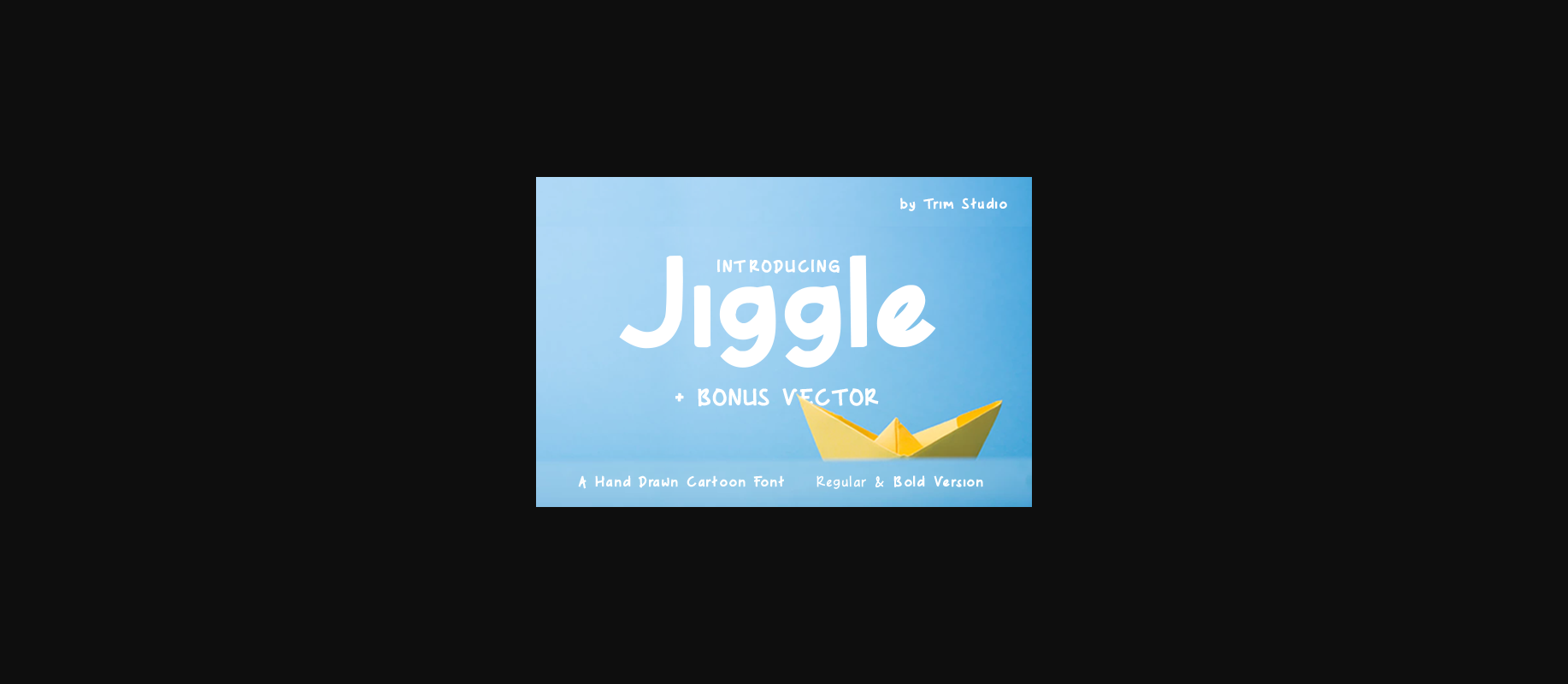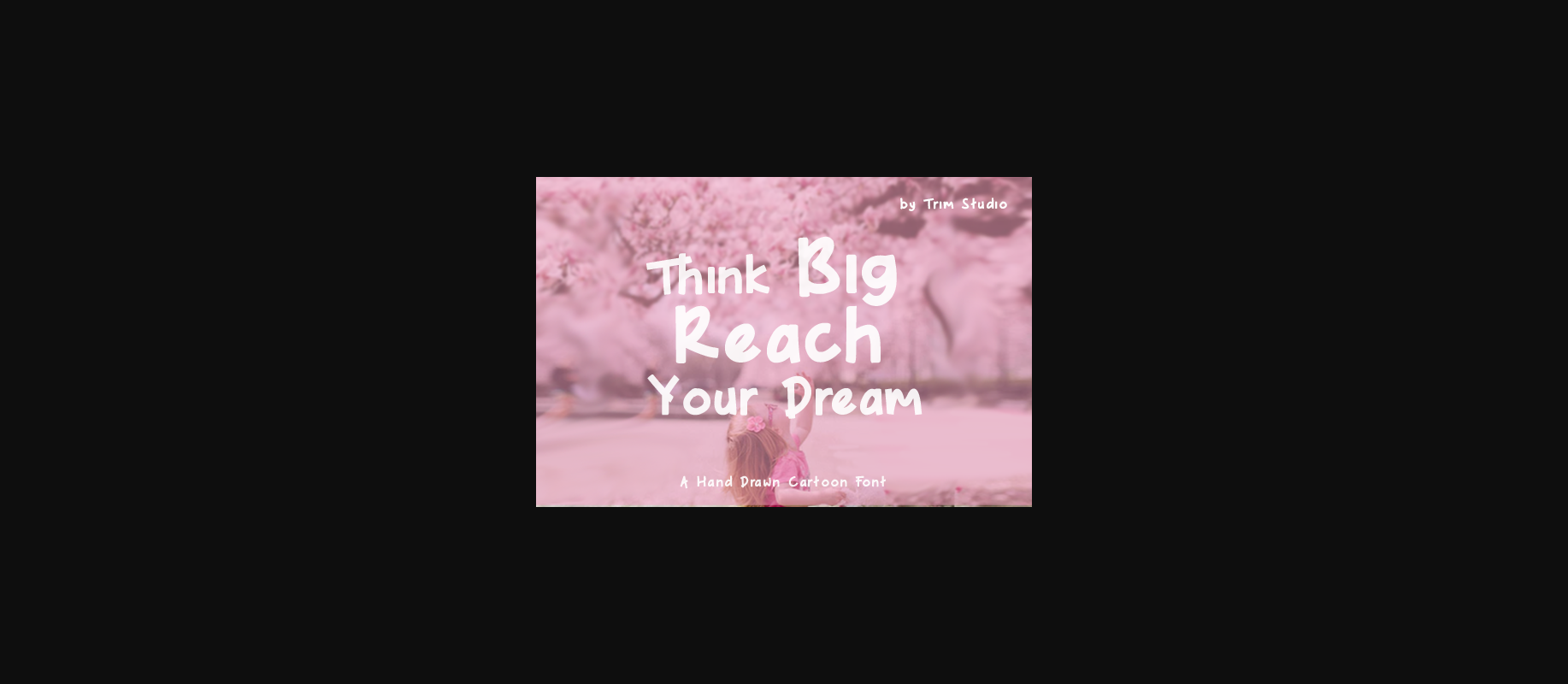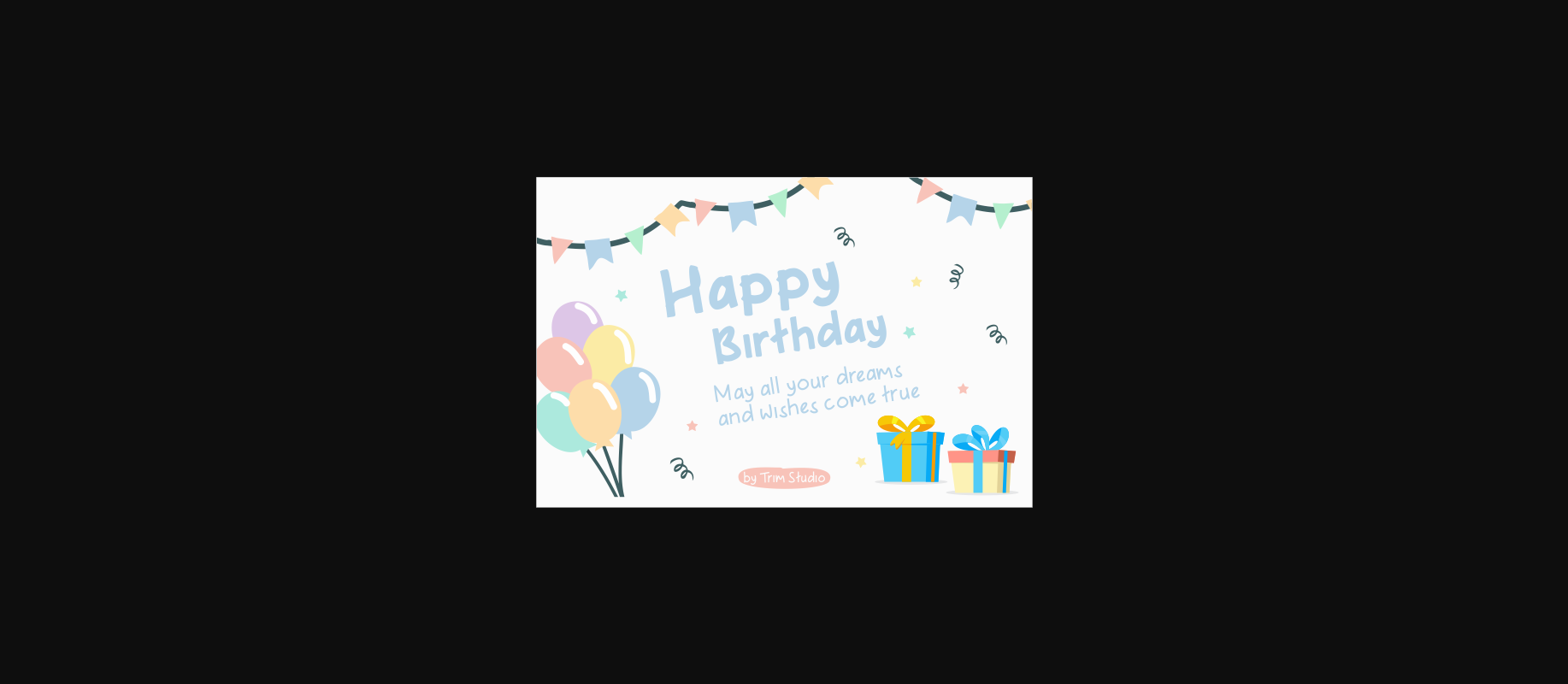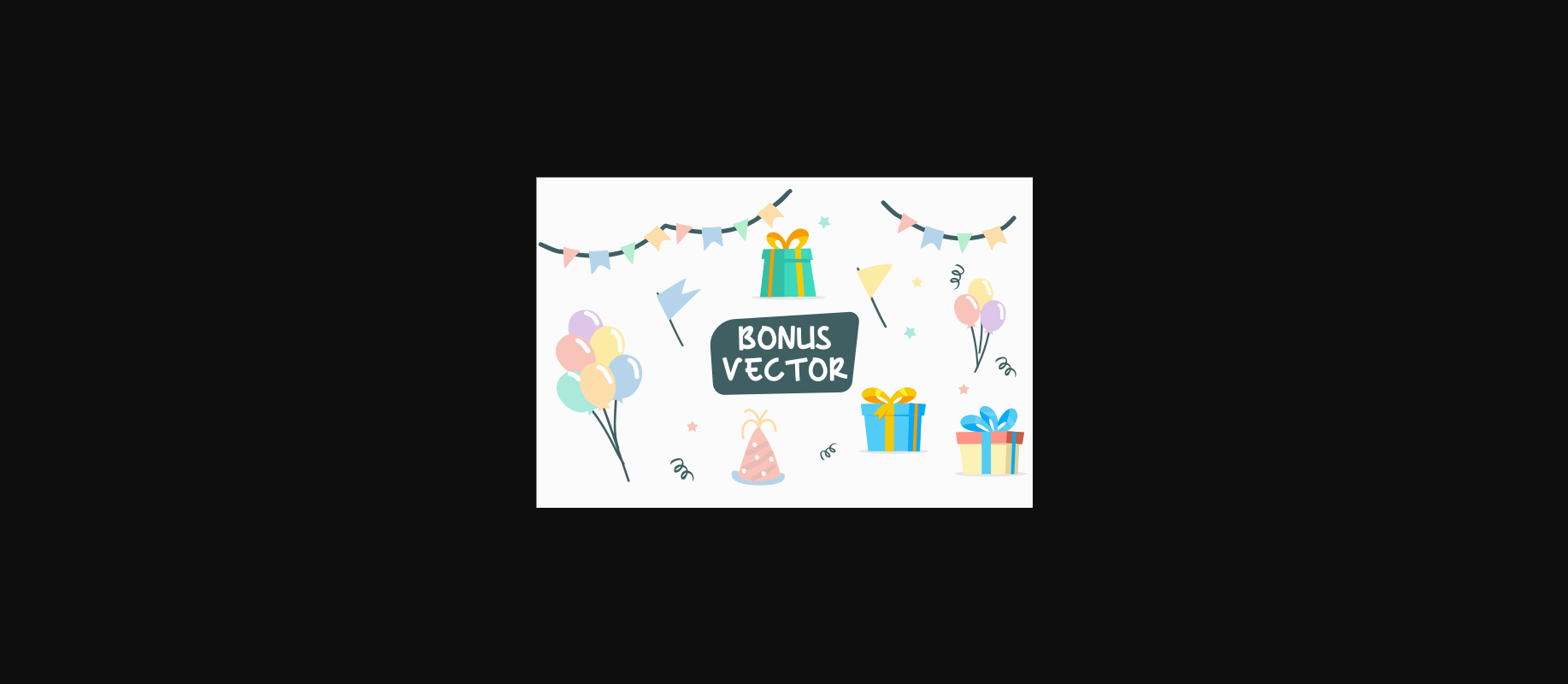
Jiggle Font
About Jiggle Font
Jiggle is a casual cartoon font. It comes in a regular and bold version. It has a childish, fun look which makes it perfect for kids designs.